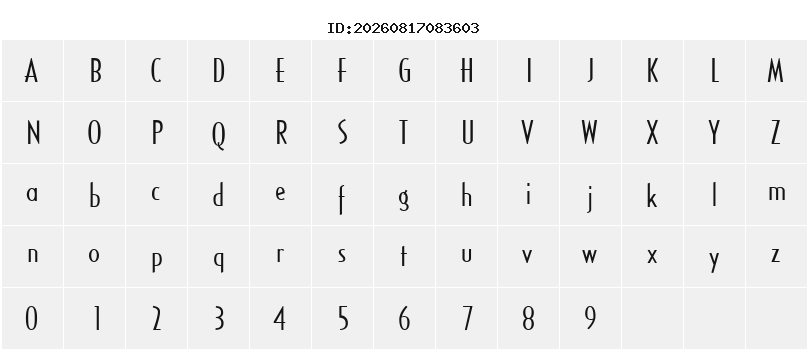
Southwestern-Extended Preview
About Southwestern-Extended.ttf
Southwestern-Extended.ttf is a modern, elegant sans-serif font designed for ultimate readability and visual harmony. Perfect for branding, headlines, web design, and print materials.